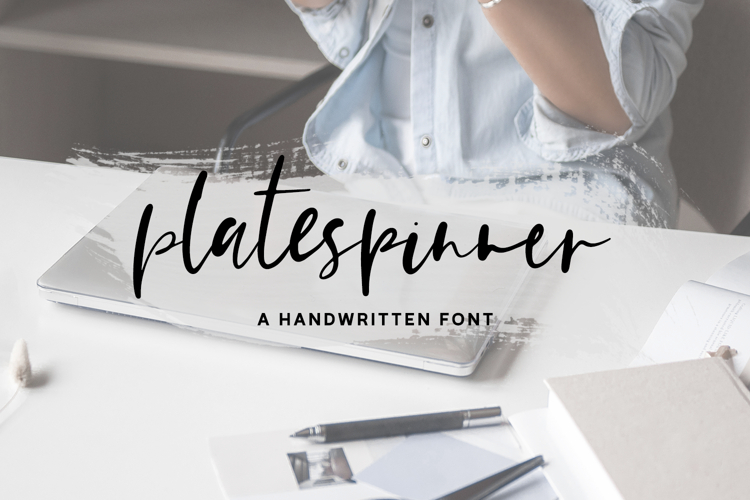
Introducing Platespinner, a handwritten signature style font. This inky, stylish font features a messy, casual look and includes a full set of lowercase alternates.
Platespinner Script is best for:
- website design + website accents - think design blogs, travel blogs, fashion blogs, & more
Platespinner includes:
- 26 lowercase alternates